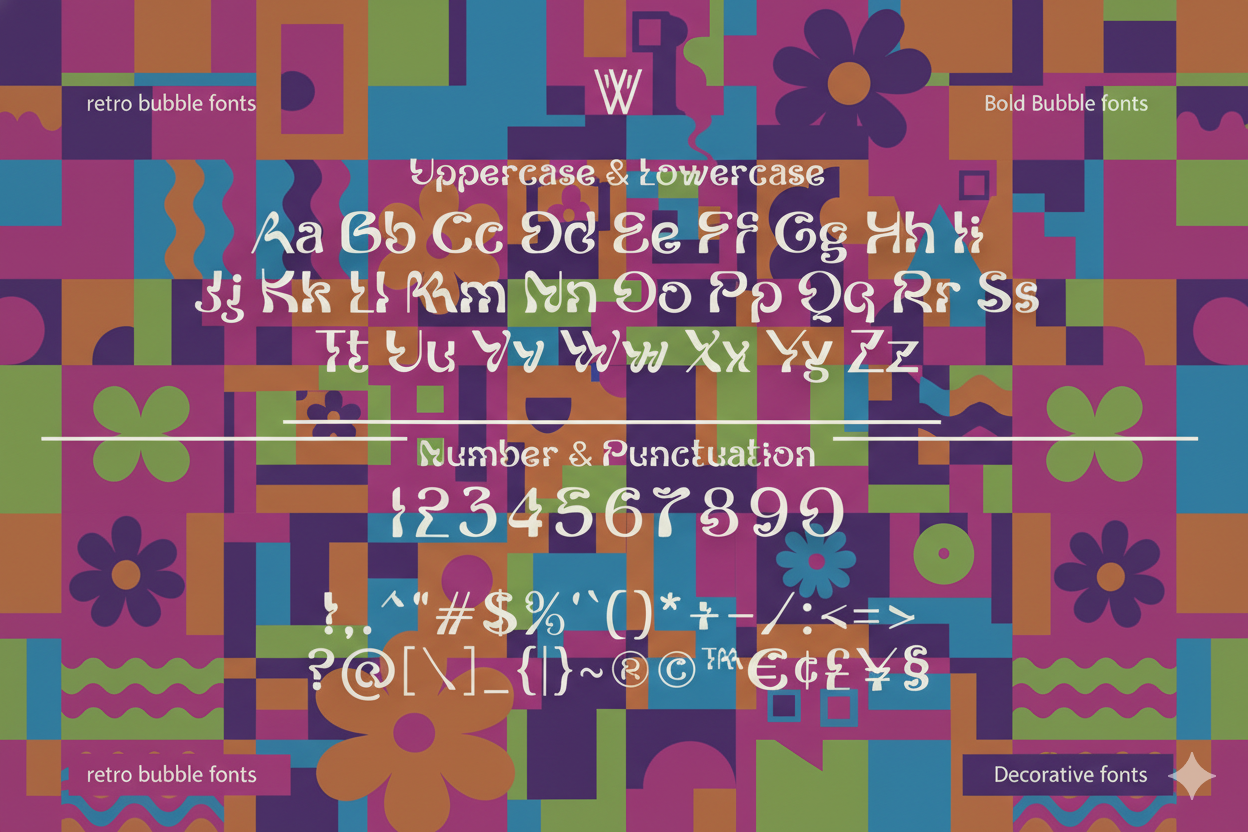
Kooltura Psychedelic Type: The Ultimate Trippy 70s Typeface
Dive deep into the groovy, counter-culture aesthetic with **Kooltura Psychedelic Type**, a uniquely stylized **trippy typeface** by ikiikowrk. This font is a direct portal to the **70s era**, designed to inject an immediate sense of vintage fun and creative rebellion into any project.
**Kooltura** is more than just a font; it’s a design statement. Its distinctive letterforms are perfect for ensuring your work—from album art to apparel—looks authentic, stylish, and unforgettable. This typeface is a must-have for designers working on **cult product** branding, **hipster stuff**, or expressive **fashion** graphics.
Key Features for Creative Projects:
- Trippy & Stylized: Delivers an authentic **psychedelic** look rooted in the **70s era**.
- Versatile Use: Ideal for **poster** design, **cover albums**, quotes, and stylish text overlays on any background.
- Complete Set: Includes **Lowercase & Uppercase**, **Number & Punctuation**.
- Global Ready: Features robust **Multilingual Support**.